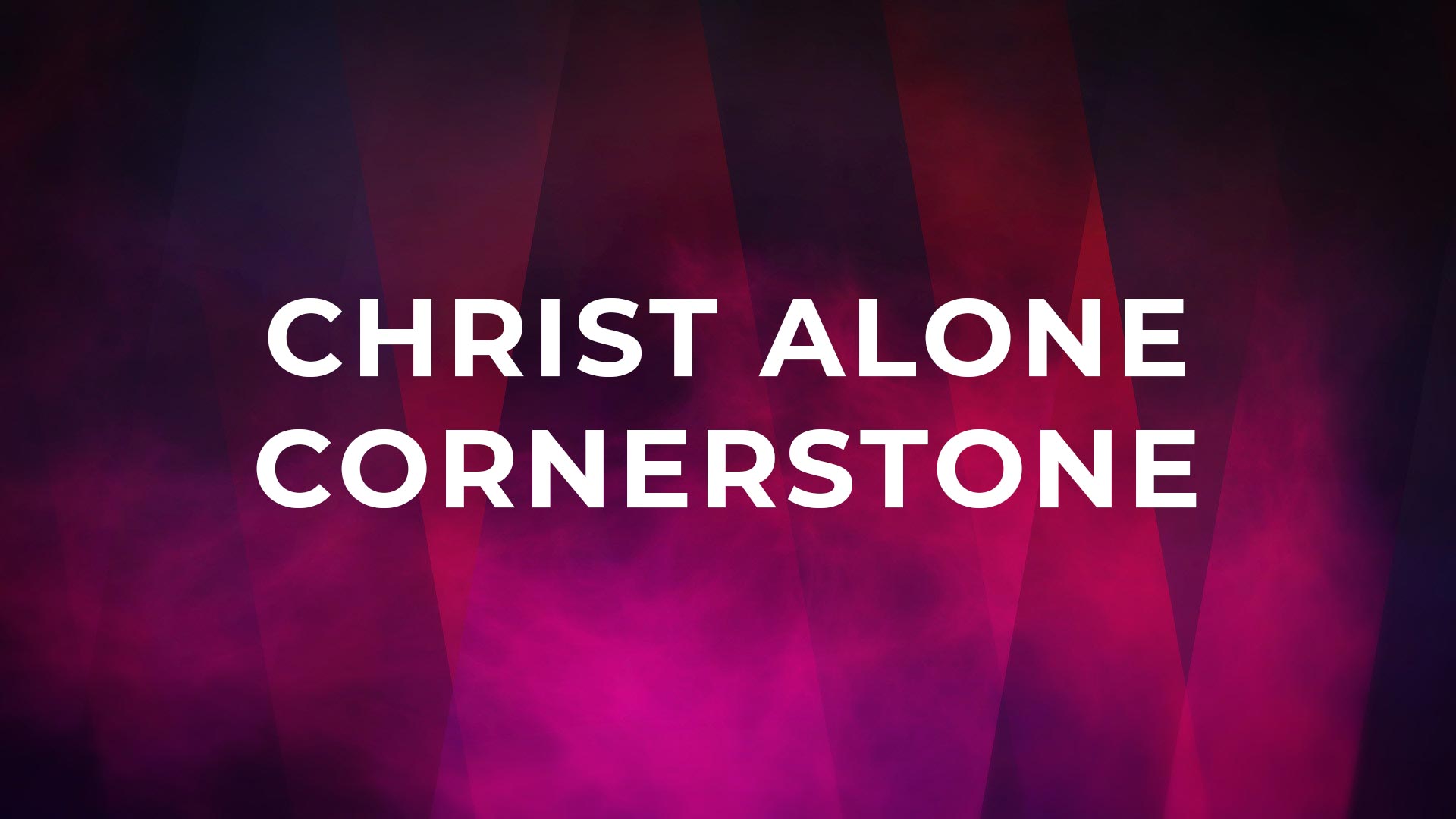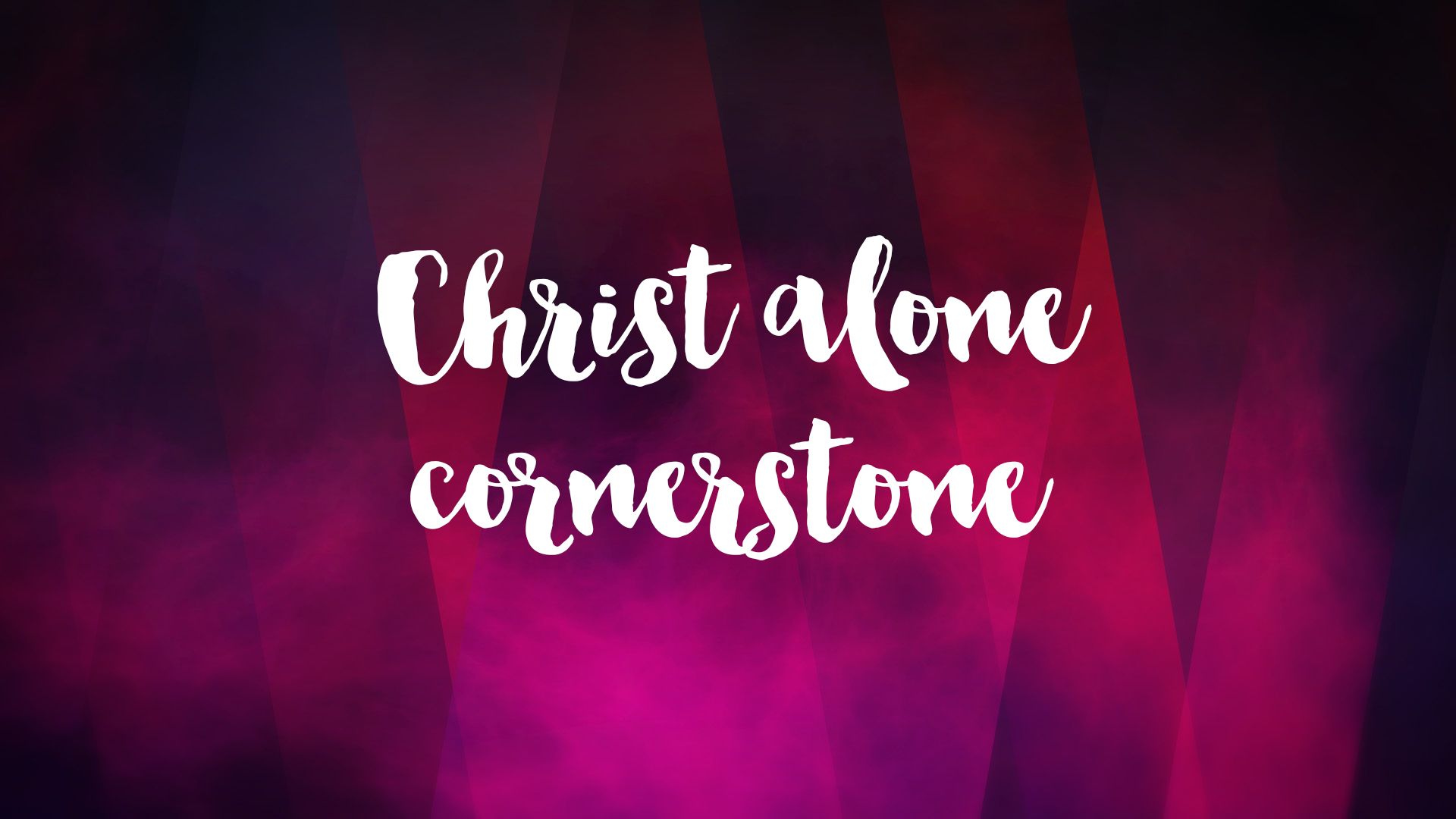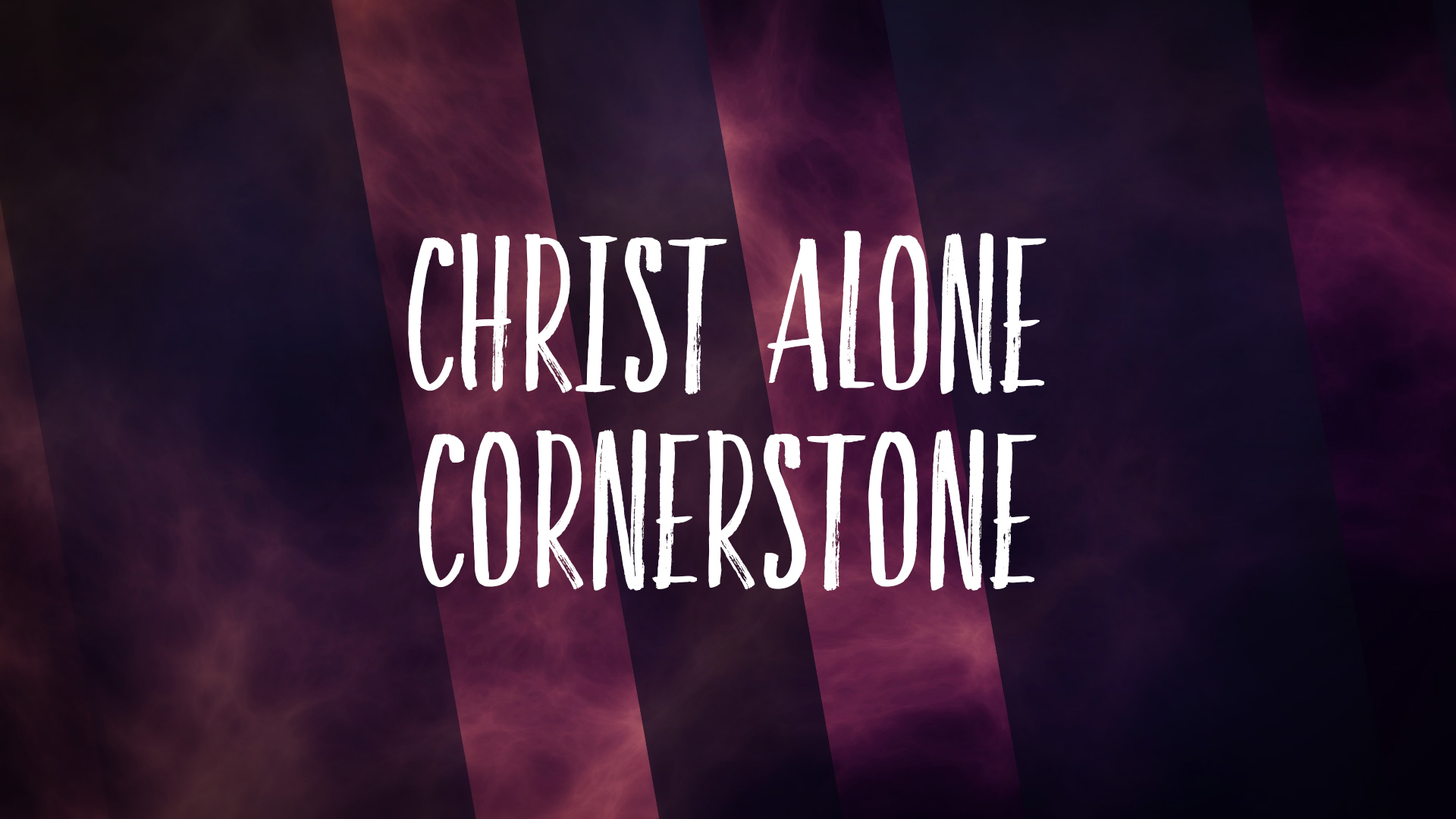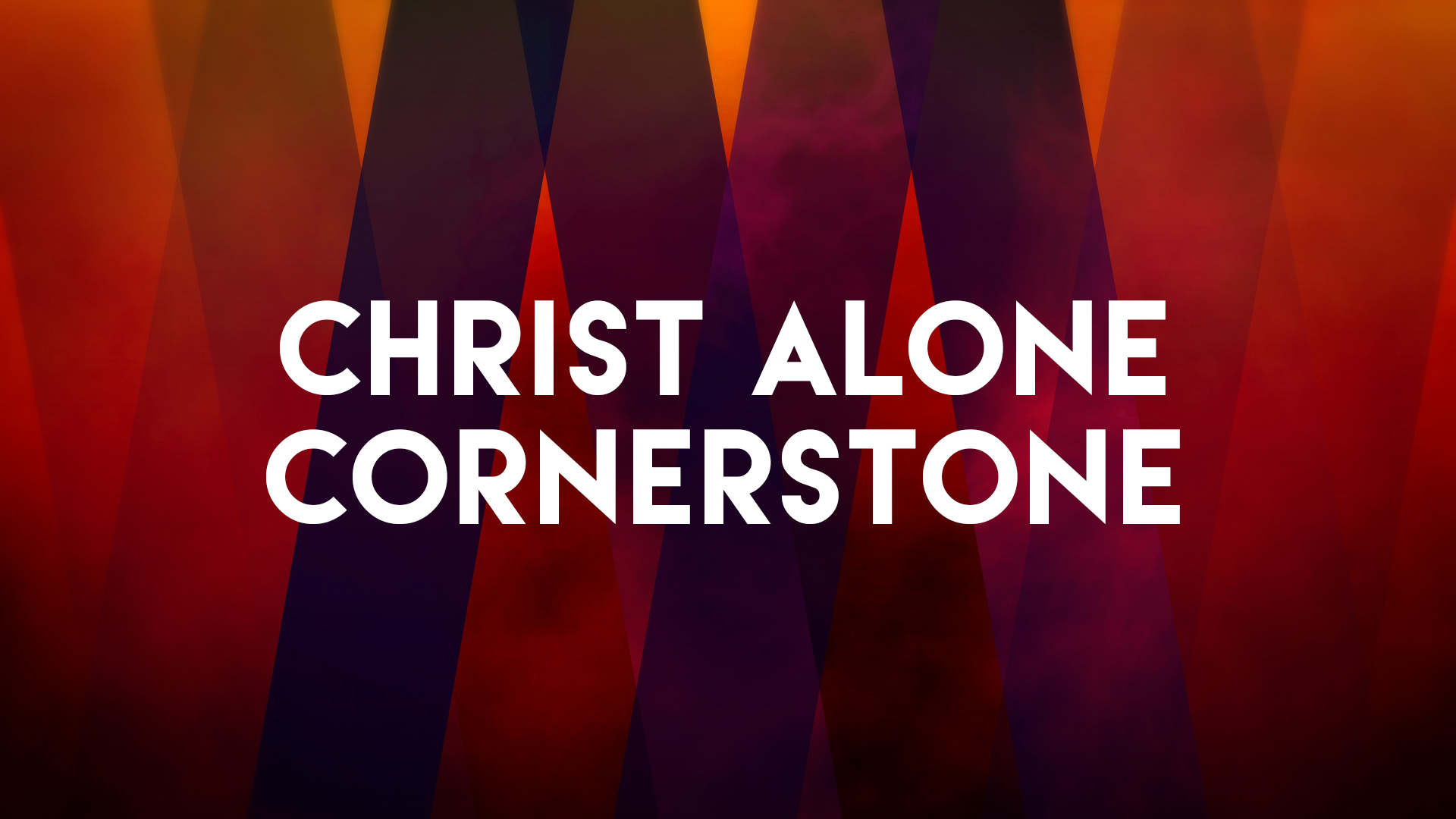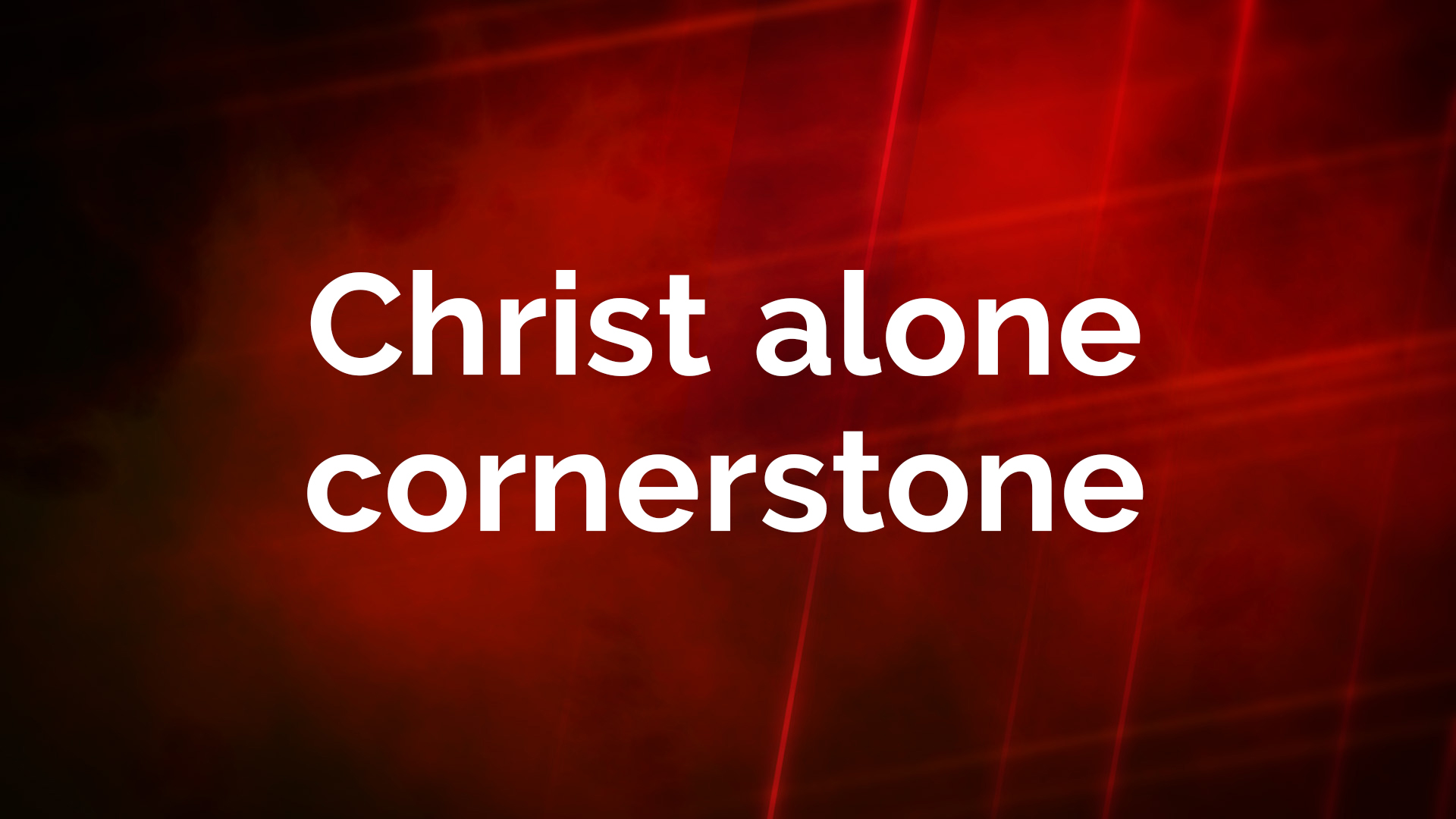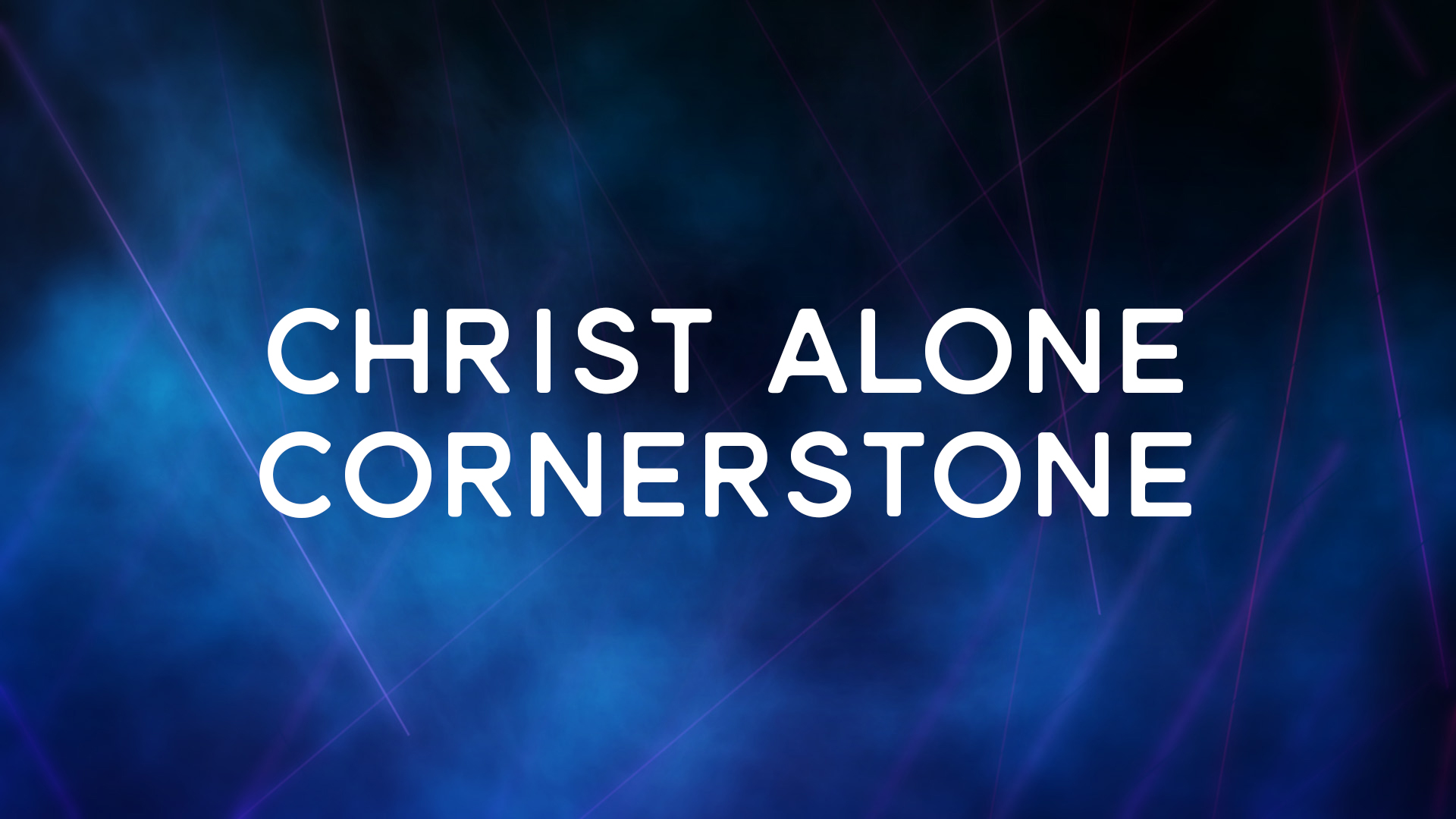
Choosing the right font for the lyrics on your church’s screens can be a tough decision! Of course, it’s important that it’s easy to read and it needs to look good.
For a long time, I would default to something simple, such as Arial, Helvetica, or Myriad Pro. All of these are great typefaces, but they get pretty boring after awhile! So, I began experimenting with some more creative fonts and found that they really add a lot to the Sunday experience. It made our lyrics feel more like a design than simply words on a wall.
It also looked great to match our lyrics with the font from our current series.
If you’re looking to give your lyrics a bold, fresh look, I recommend checking out these fonts:
1. CMG Sans – Free
2. Lemon/Milk – Free
3. Smoothy Sans – $16
4. Raleway Bold – Free
5. Bebas Neue – Free
6. Faith & Glory – $16
Do you have any other unexpected lyric fonts that you would recommend?
We’ve been using these fonts at Piedmont Chapel and they look great!
Love Raleway. Also a fan of Fira Sans
I just checked out Fira Sans. Looks awesome!
I love stepping out of the basics, without being too distracting. These are good ones for that! But since you mentioned some basics, I’ll throw in one more that we still use a lot: Gill Sans MT.
Gill Sans is a classic! Thanks for bringing that one up!
I am using Gill Sans as well! I just love the geometric feel of the sans-serif font.
Brain Flower is a great one! Adds that hand drawn feel and gives life to those worship lyrics.
Just checked it out. It looks awesome, Charles!
We use Marker felt Wide for years.
Hi Kendall – Love that the site has been relaunched! This article strikes a chord with me, but for a slightly different reason. I always struggle with “design” compared to “function” for lyric projection. The fact that lyric projection can be “designed” and match other creative materials is fantastic for immersive experiences – but does the actual function of worshiping as a gathered community get lost in the design?
It’s definitely a balance, Mike! It’s the kind of thing that I like to test in our space before going live. I like to think I’m the harshest critic it has to go through. :)
I have been using Lovelo Black for Praise lately – http://www.fontfabric.com/lovelo-font/
Also, Playfair Display is nice for something different for worship – http://www.fontsquirrel.com/fonts/playfair-display
Both of these look awesome! Thanks for sharing!
I’ve been using Bebas for the last little while. Quite like the look of Lemon/Milk, so it may be time for another change.
Change is good! :) Let me know how it works for you.
When in doubt, I use Bebas. Bebas family looks gorgeous.
Good thing the website returned. I’m typing here from Brazil which use the Tahoma font by its simplicity and clarity in slides
Have fun with the new fonts!!
Love the Bebas Neue family, agree with Mark, it’s definitely a go to font! Great to have you back posting Kendall…
With fonts like Bebas & Lemon/Milk though how have you found using all caps makes a difference to your community?
I’ve wanted to switch to all caps for a while but I know Jeff McIntosh is adamant it’s not a good idea? Would love to hear how others have found doing this? Don’t want to hinder our community worship time if it will cause people to struggle?!
Would love your thoughts on this?
I don’t think it has really made any difference for our people. But, we’re a progressive bunch. :)
I’ve found that those with dyslexia have trouble with all caps.
These were great… an easy way to freshen up lyric slides!
Avenir Next Heavy Italics is a good one, as well as Arvil. Both great
We at Impact Church in Lowell, Michigan love “Lovelo”! Free font and very similar to Lemon/Milk.